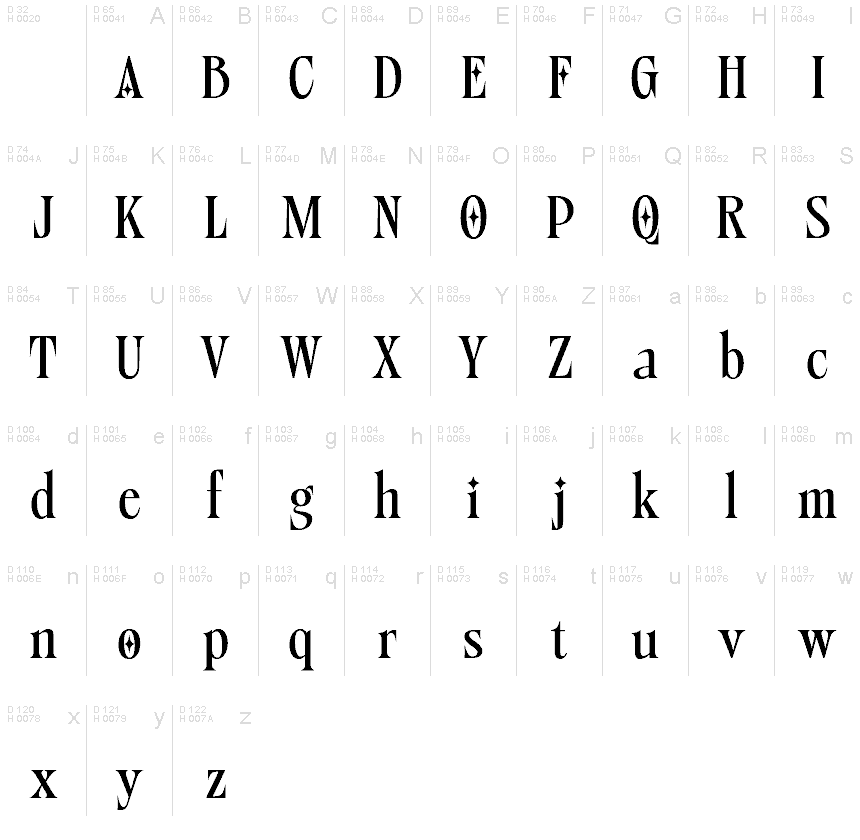
CS Marigold Regular Demo
CS Marigold font by Craft Supply Co. is a sophisticated serif font showcasing a classic style with decorative elements and vintage charm that emphasize an overall refined aesthetic. The elegant characters will proudly stand on displays where readability, visual beauty, uniqueness, and class are at stake.
This free serif font can be used in newspapers, poster titles, magazine covers and spreads, advertising material design layouts such as brochures or flyers. Business or invitation cards, clients’ oriented presentations with infographics using large data numbers. And finally brand naming or logos for luxury products especially within cosmetics packaging where prestige must be gained upon labels of perfumes or creams containers.